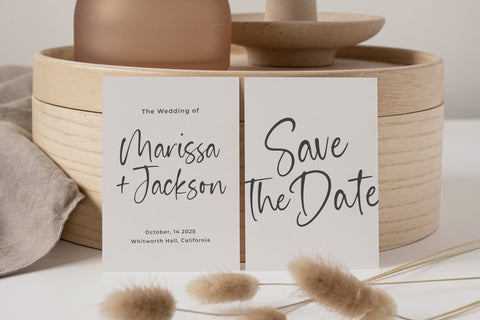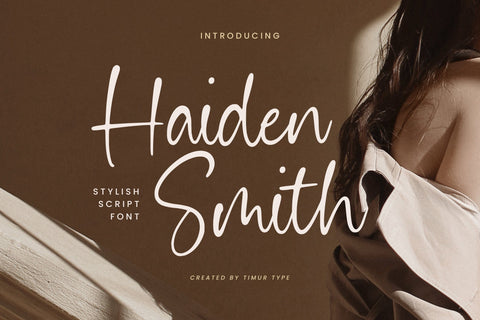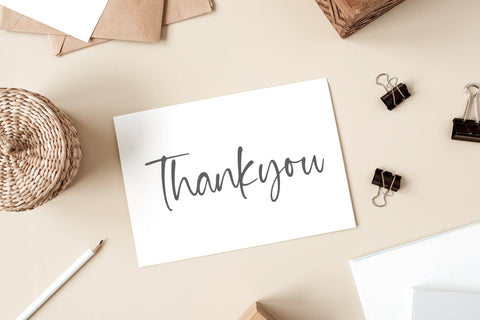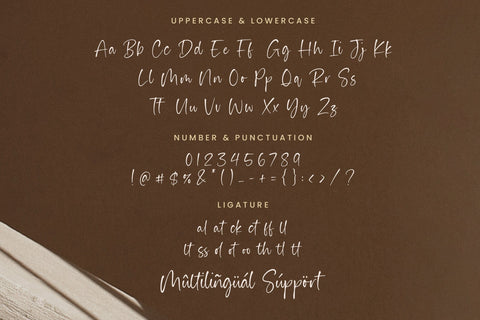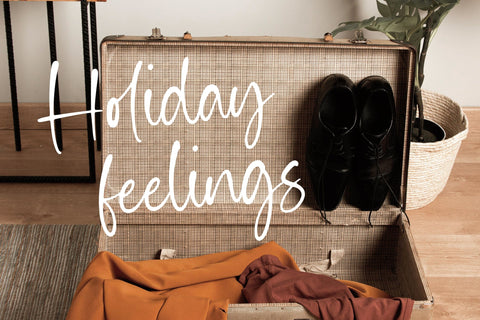
Haiden Smith - Stylish Script font
Introduced by Timur type
Proudly Present Haiden Smith
Haiden Smith is a Stylish Script font that is modern and fresh, and will bring a warm and inviting feel to your business. Take advantage of the fonts and experience the magic for yourself.
Haiden Smith font is perfect for product packaging, branding project, megazine, social media, wedding, or just used to express words above the background.
Ligature
stylistic Alternate set
Haiden Smith font also multilingual support.
Haiden Smith font Features premium :
-Full Set of standard alphabet and punctuation